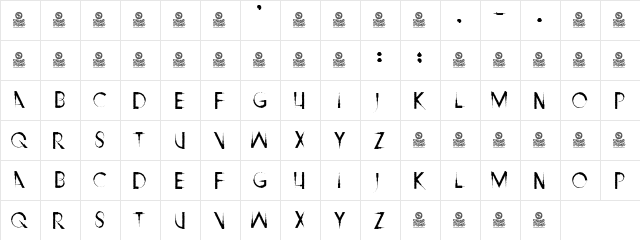
Ripley's Claws Regular
Design Context for Ripley's Claws Typeface
Ripley's Claws is a composed and adaptable typeface that performs quietly and consistently across a wide range of design contexts.